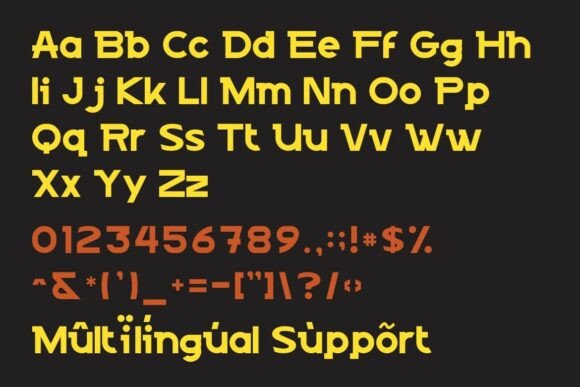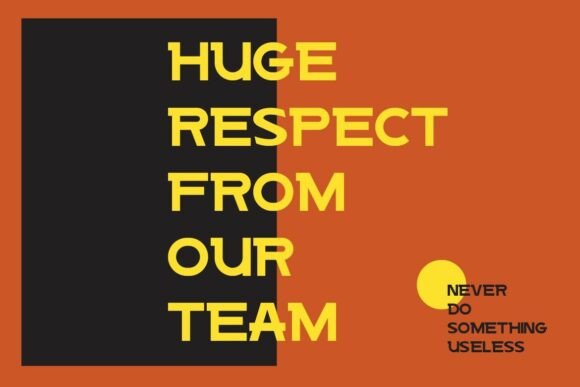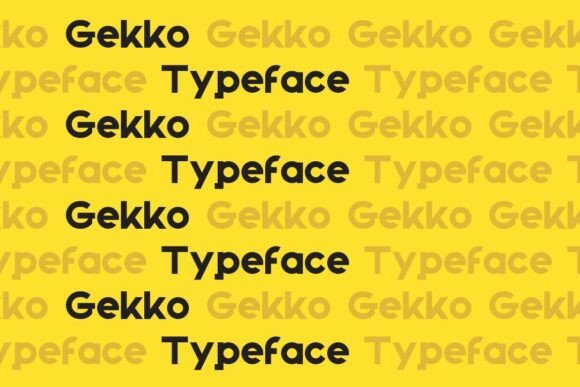
Gekko Font: Elevate Your Design with a Clean and Confident Sans Serif
In the realm of modern visual communication, typography plays a pivotal role in conveying messages with clarity and impact. Among the myriad of fonts available, the Gekko font stands out as a beacon of clean design and confident expression. Specifically crafted for the demands of contemporary visual projects, Gekko brings a refreshing blend of precision, elegance, and energy. This article delves into the world of Gekko, exploring its design characteristics, and the multitude of applications where it shines.
The Essence of Gekko: A Sans Serif with a Modern Edge
Gekko is a clean and confident sans serif font, meticulously designed to meet the needs of modern visual communication. Its design ethos revolves around precise geometry, sharp curves, and a smooth rhythm that collectively contribute to its distinctive appearance. This careful attention to detail ensures that Gekko not only captures attention but also communicates messages with clarity and efficiency.
Design Characteristics of Gekko
- Precise Geometry: The backbone of Gekko’s design is its precise geometric structure. This aspect ensures that the font maintains a clean and uncluttered appearance, making it highly legible across various applications.
- Sharp Curves: Gekko’s curves are meticulously crafted to add a touch of elegance and fluidity to the font. This blend of sharp and smooth elements gives Gekko its unique character, setting it apart from more traditional sans serif fonts.
- Smooth Rhythm: The rhythm of Gekko’s lettering is smooth and even, contributing to its overall readability and aesthetic appeal. This characteristic makes Gekko particularly effective in lengthy texts and in designs where flow and continuity are key.
Applications of Gekko Font
Gekko’s versatile design makes it suitable for a wide range of applications, including:
- Branding: For businesses looking to establish a modern and sophisticated brand identity, Gekko offers a clean slate that can be molded to fit various brand personas.
- UI/UX Design: In the digital realm, user interface (UI) and user experience (UX) design are crucial. Gekko’s legibility and contemporary feel make it an excellent choice for digital products, enhancing user interaction and experience.
- Editorial Layouts: For editorial projects, such as magazines, newspapers, and blogs, Gekko provides a crisp and engaging reading experience, making it ideal for body text and headlines.
- Tech Products and Digital Interfaces: The tech industry demands fonts that are not only modern but also highly legible in various digital interfaces. Gekko fits this bill perfectly, offering a sleek and professional look that aligns well with tech branding and product design.
Why Designers and Crafters Choose Gekko
Designers and crafters gravitate towards Gekko for several reasons:
- Contemporary Aesthetic: Gekko embodies a modern design sensibility that resonates with current design trends, making it a go-to choice for projects that demand a fresh look.
- Versatility: Its adaptability across different mediums, from digital screens to print, makes Gekko a versatile tool in any designer’s arsenal.
- Legibility: In an era where digital content is king, Gekko’s high legibility ensures that messages are conveyed effectively, regardless of the platform.
Gekko font is more than just a typeface; it’s a design statement that combines cleanliness, confidence, and a modern edge. Its precise geometry, sharp curves, and smooth rhythm make it an invaluable asset for designers and crafters looking to elevate their projects. Whether it’s for branding, UI/UX design, editorial layouts, or tech products, Gekko offers a blend of aesthetic appeal and functionality that meets the demands of contemporary visual communication. As designers continue to seek fonts that can keep pace with the rapidly evolving digital landscape, Gekko stands out as a beacon of innovation and clarity.